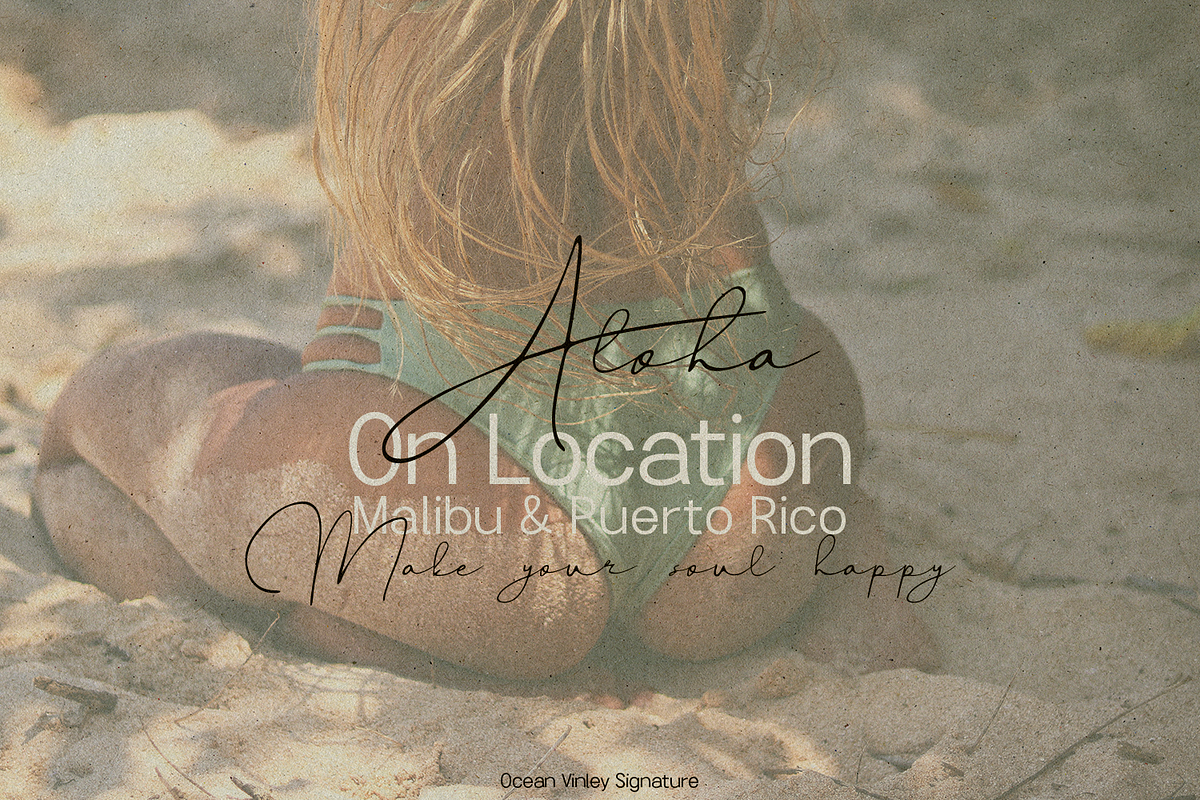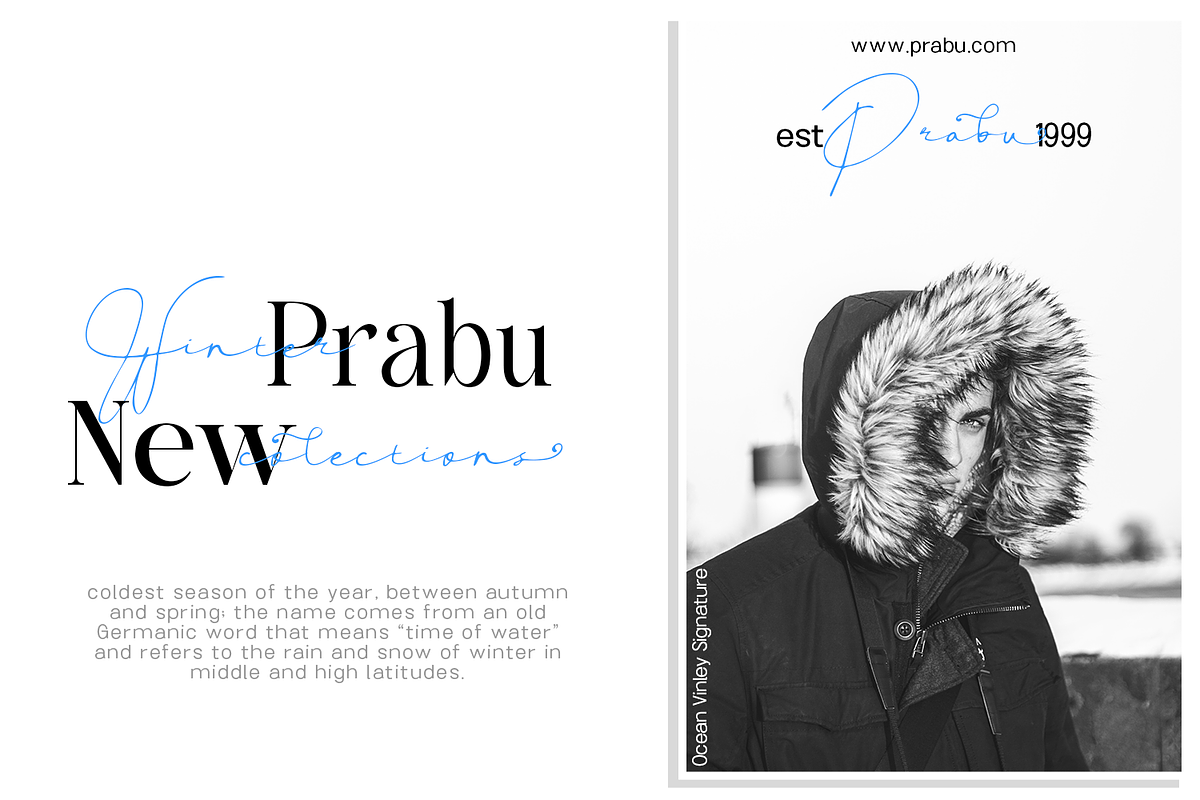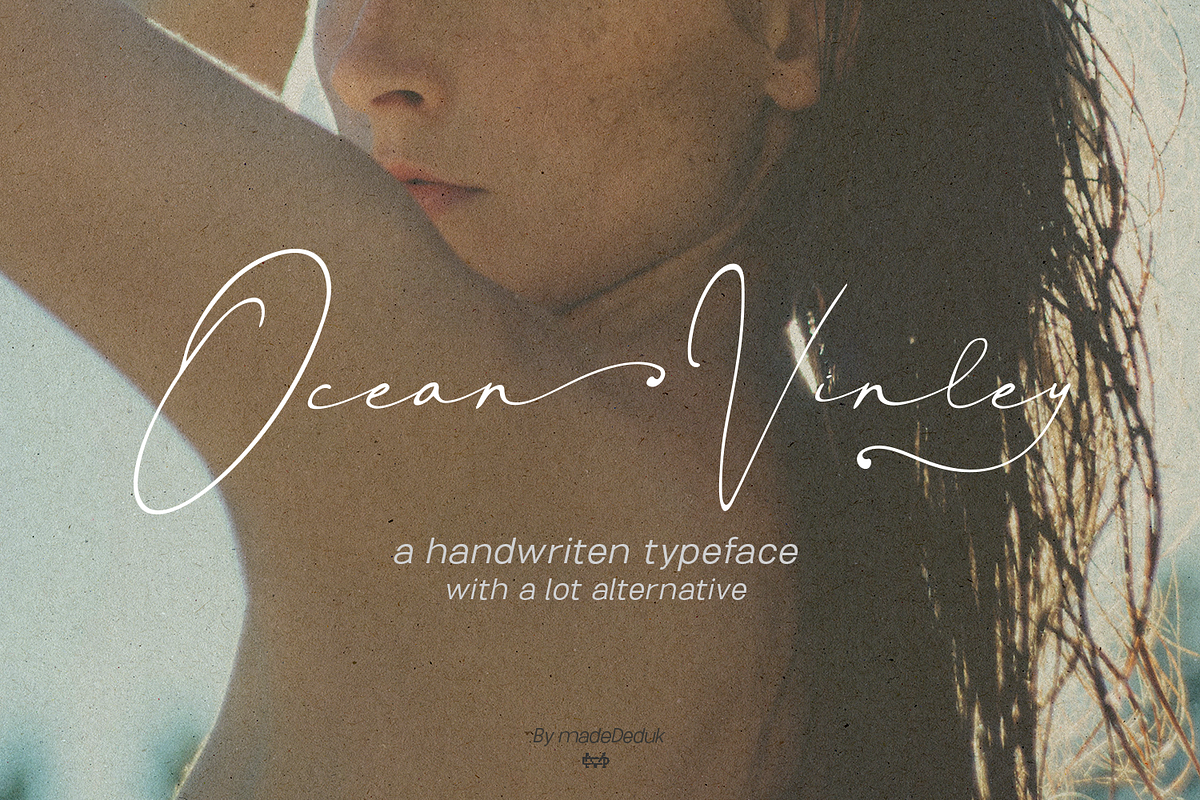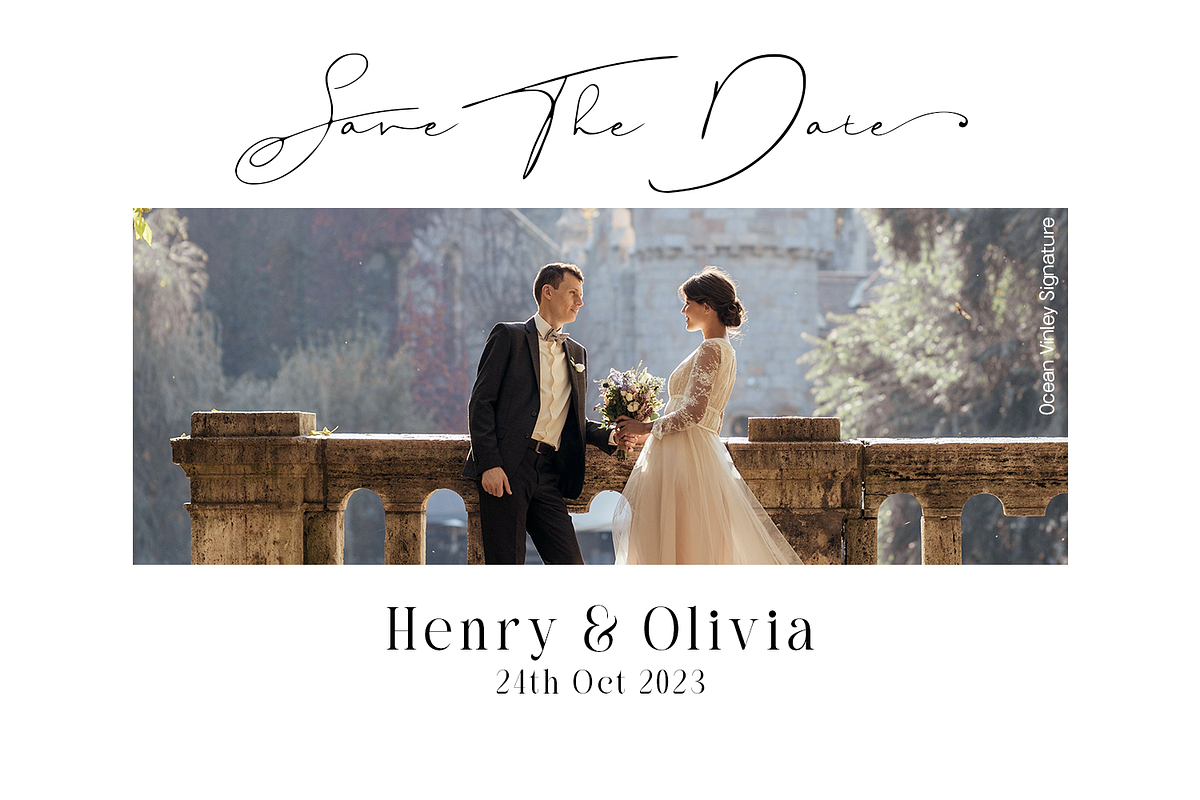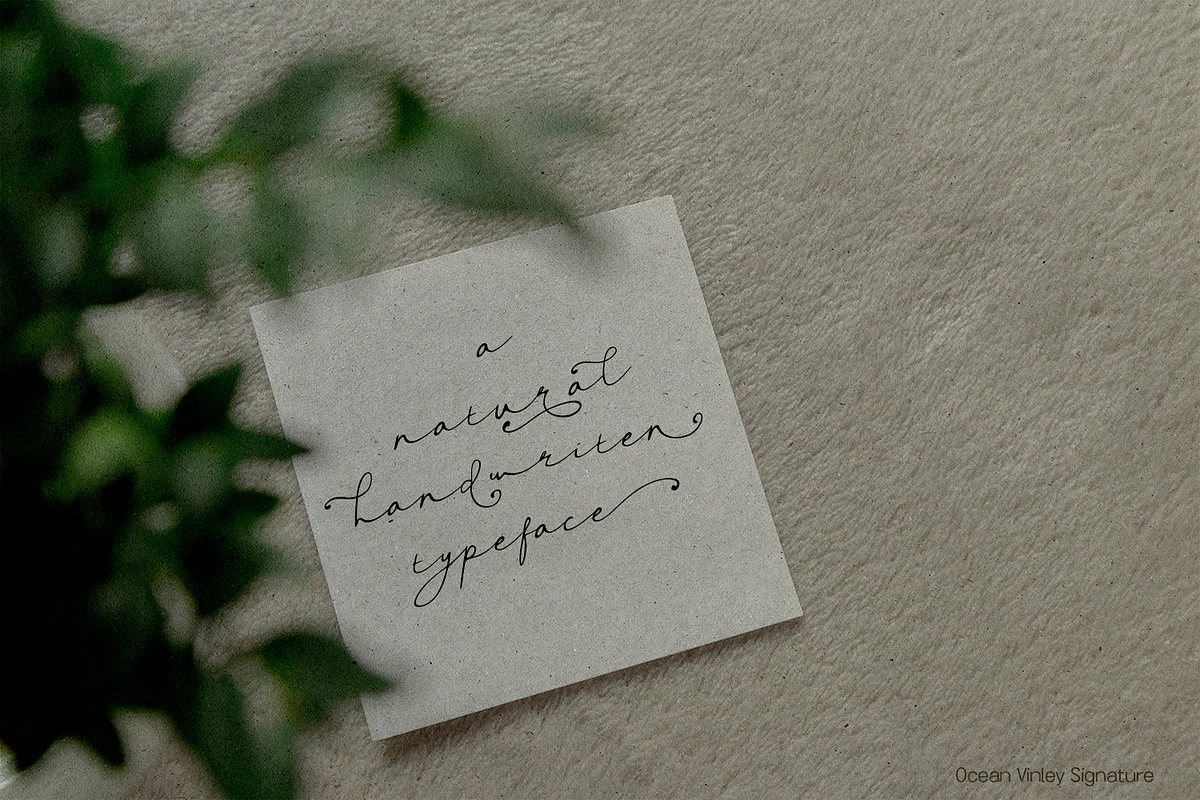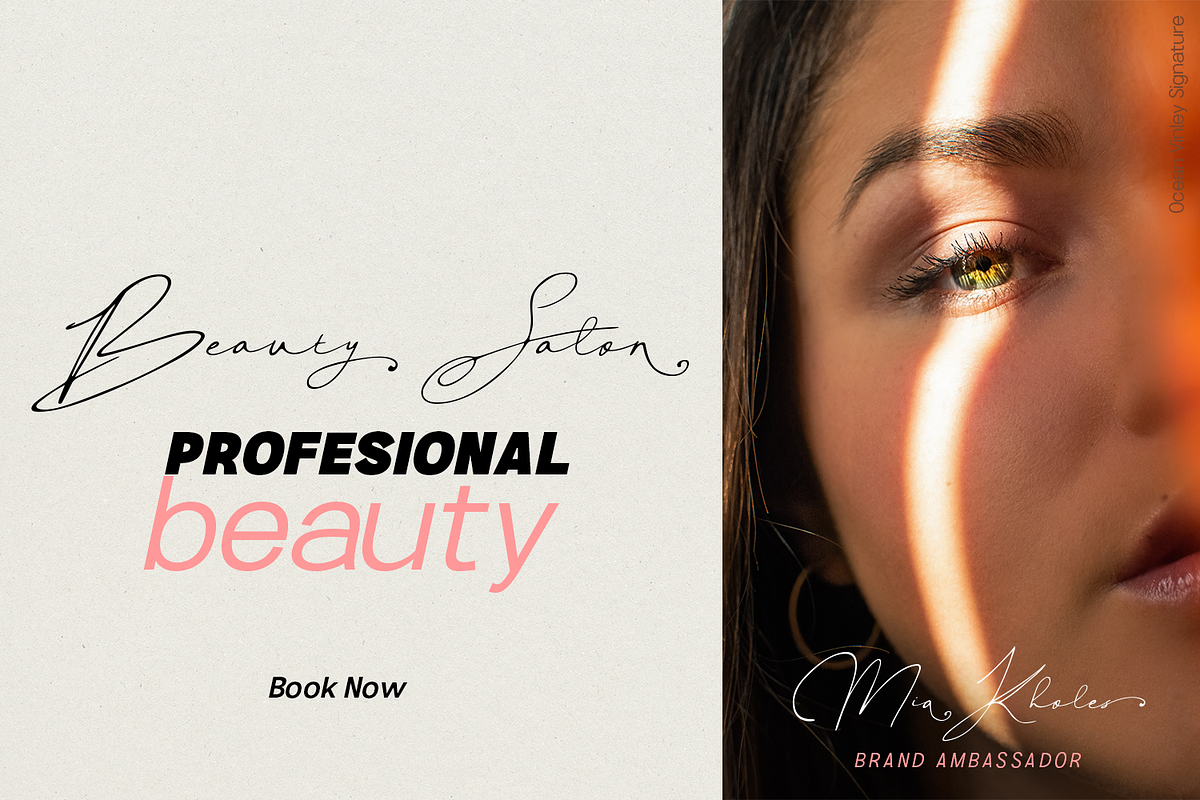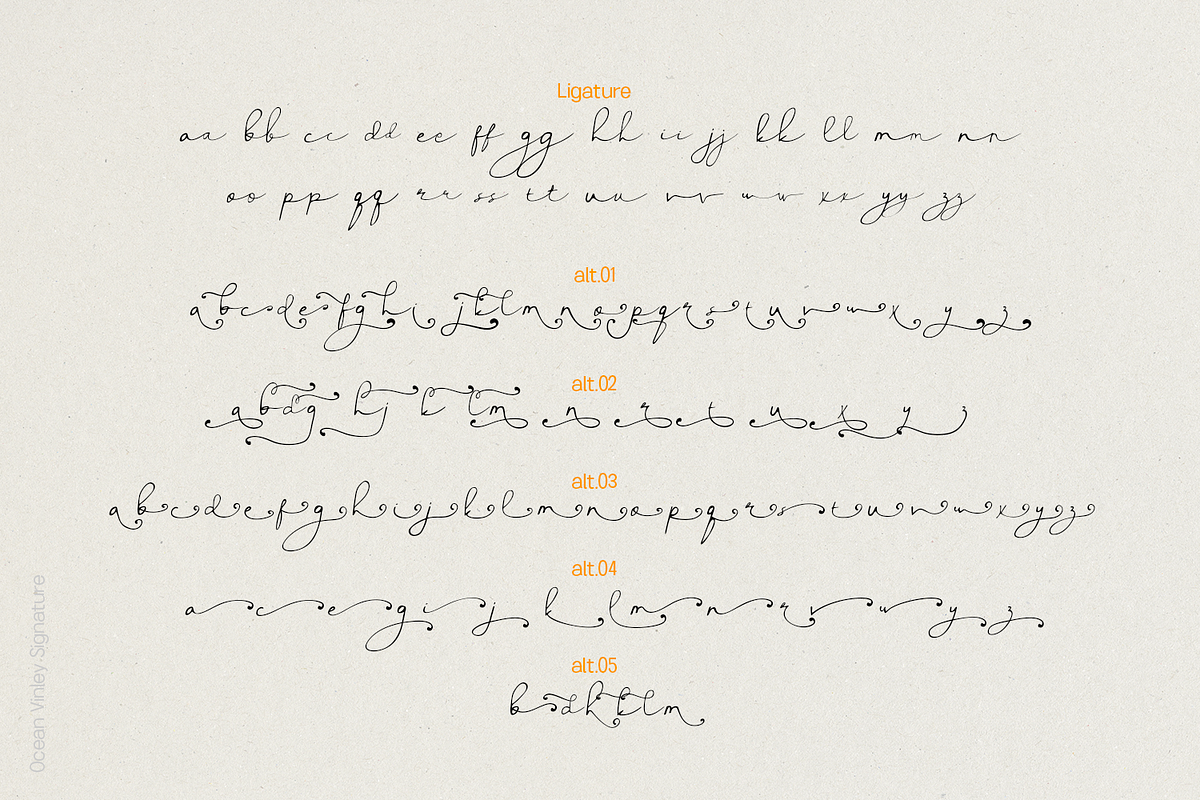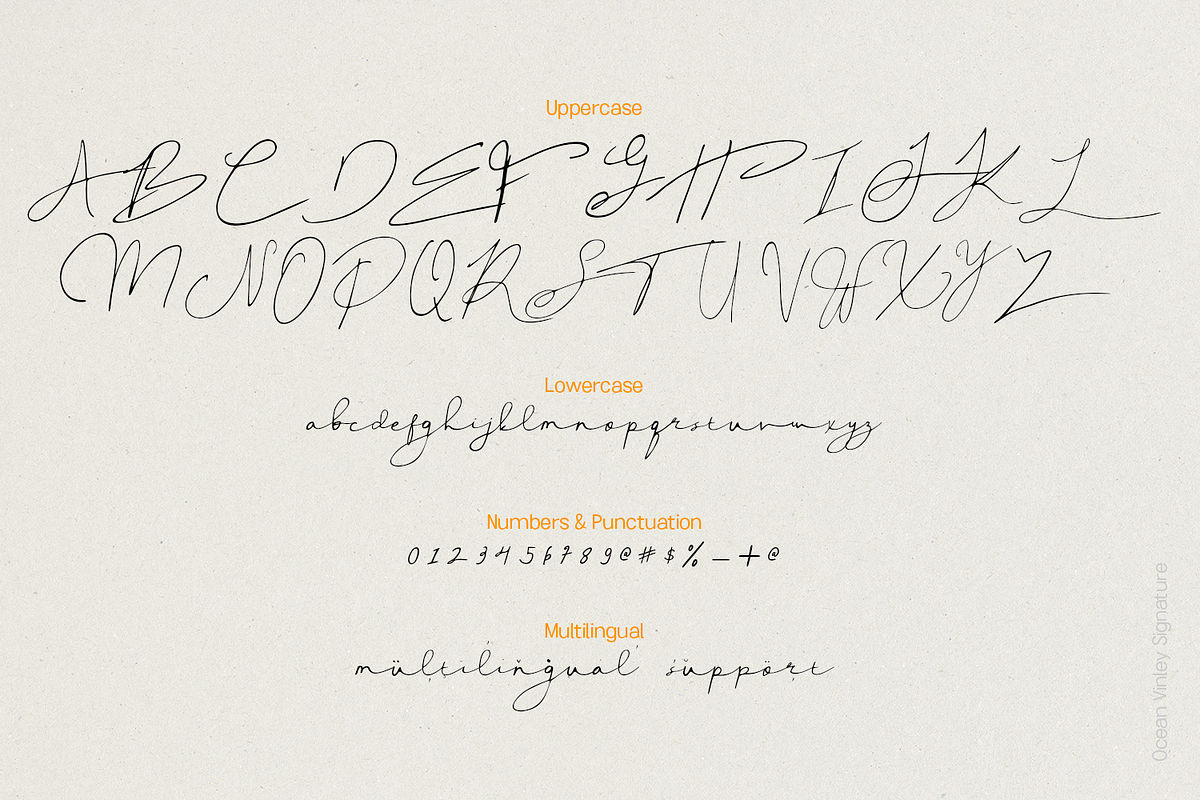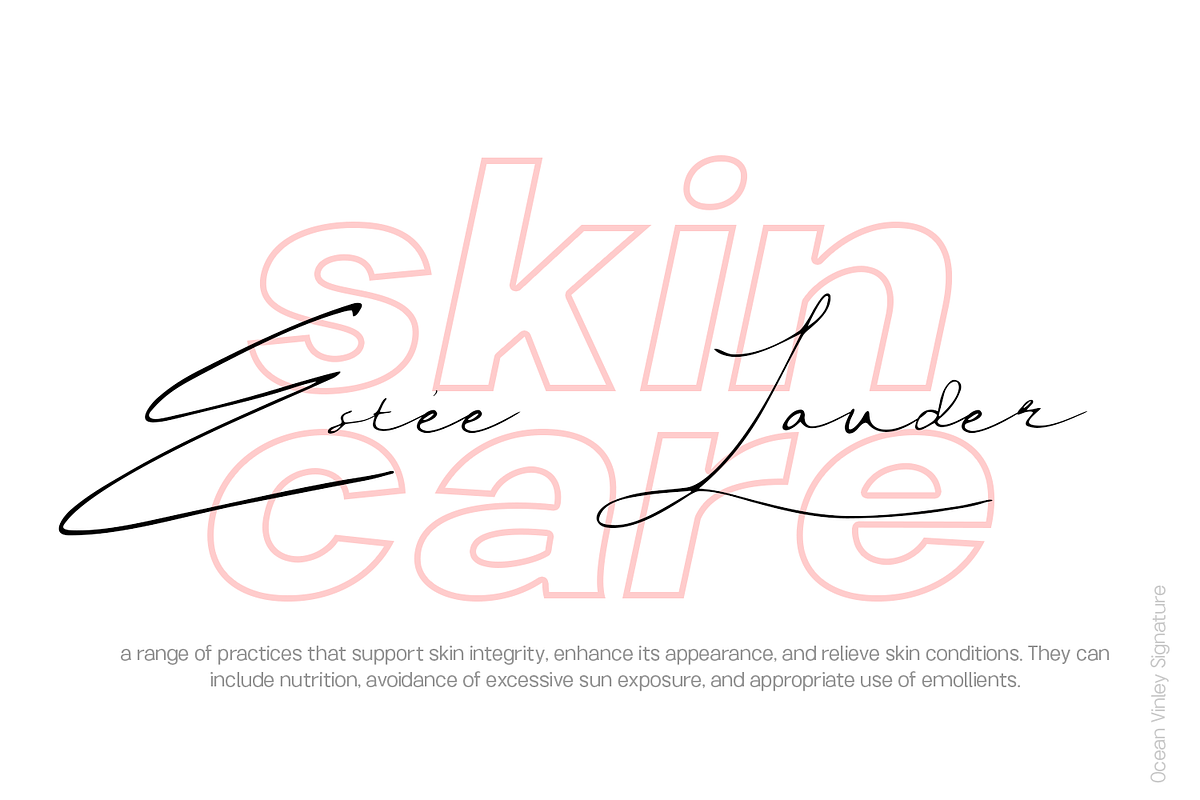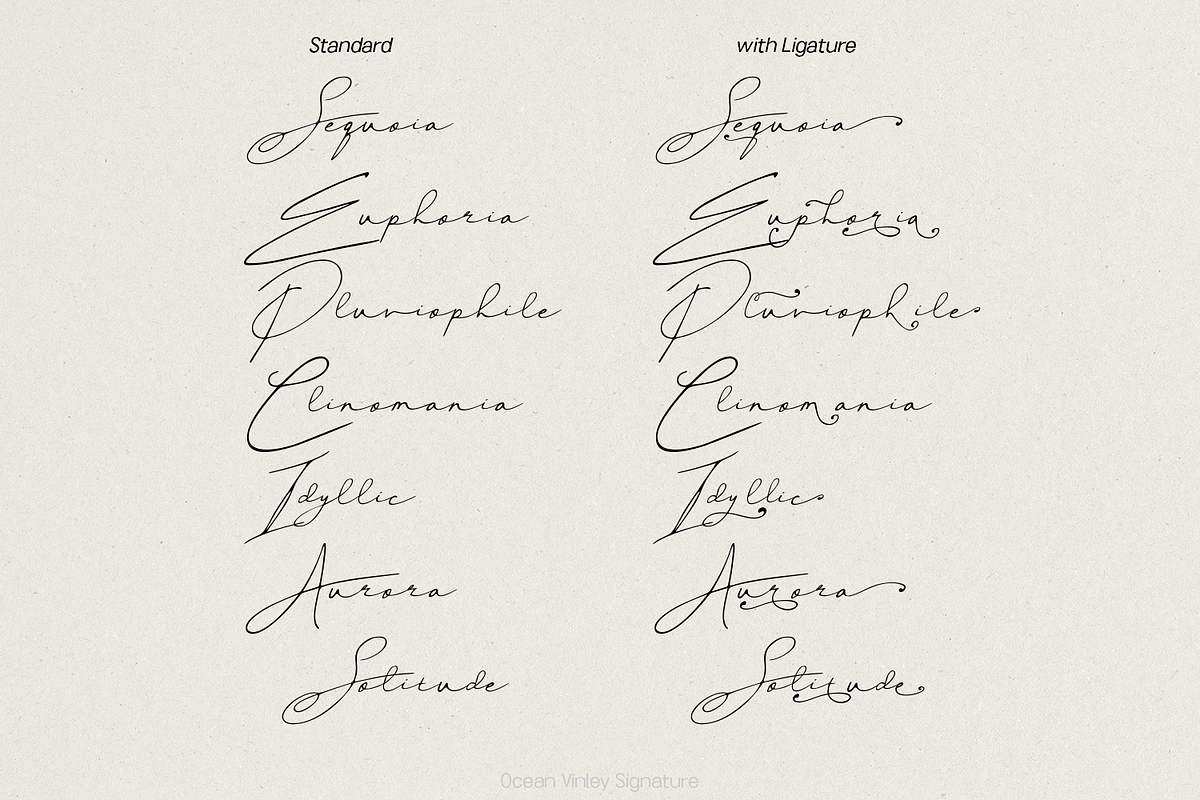
Ocean Vinley Signature
Ocean Finley Signature is a flowing handwritten font, described by an elegant touch, perfect for your favorite projects. Fall in love with its incredibly distinct and timeless style and use it to create spectacular designs!
- International Glyphs